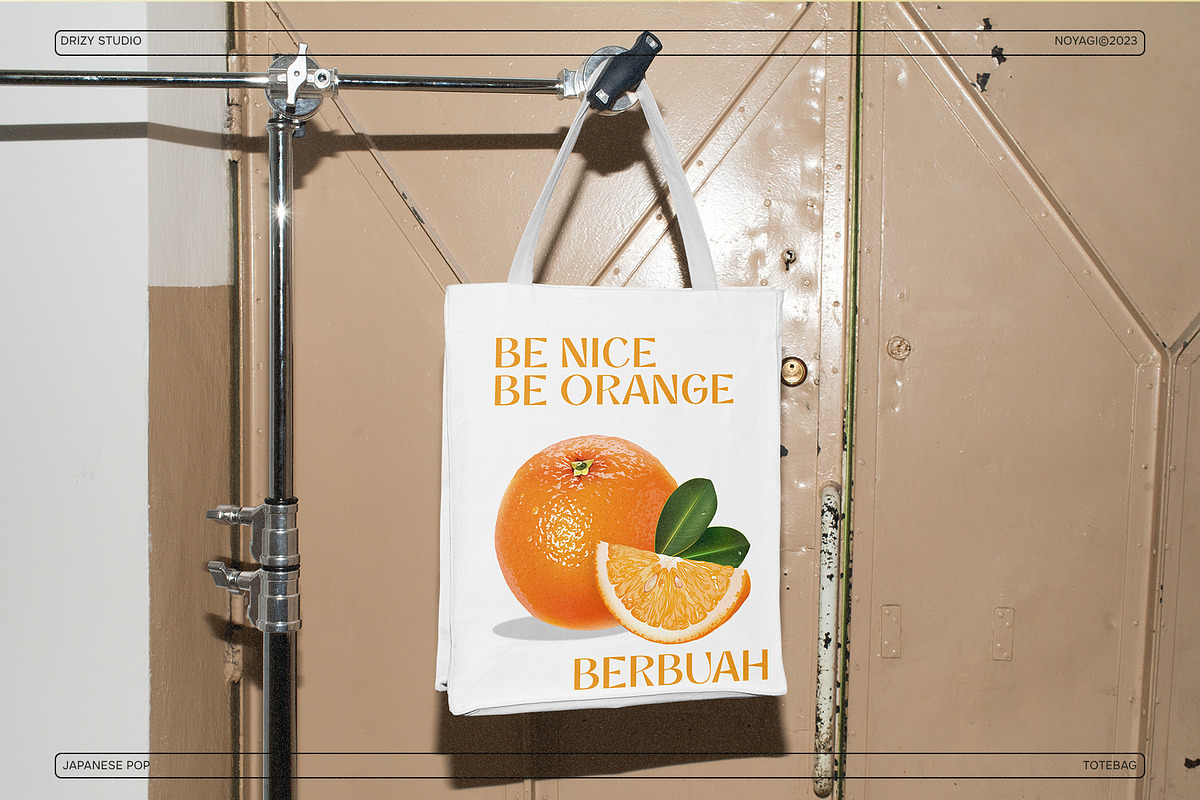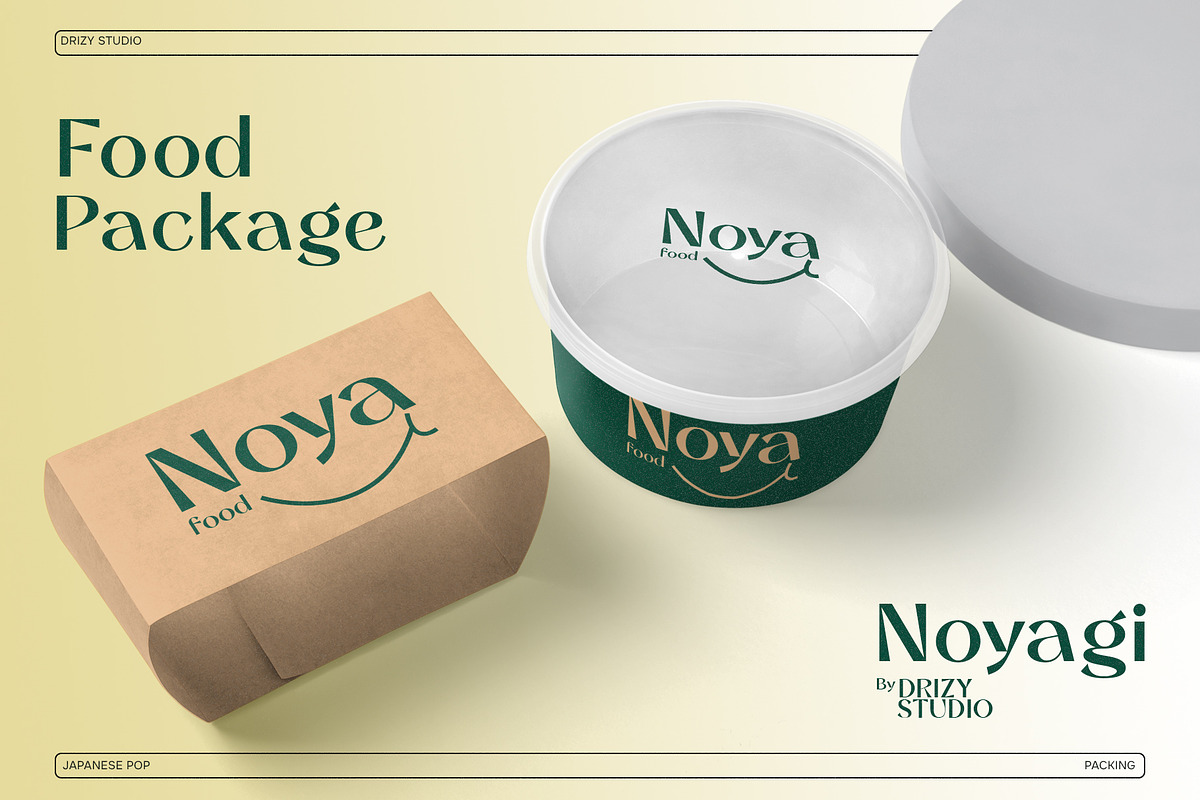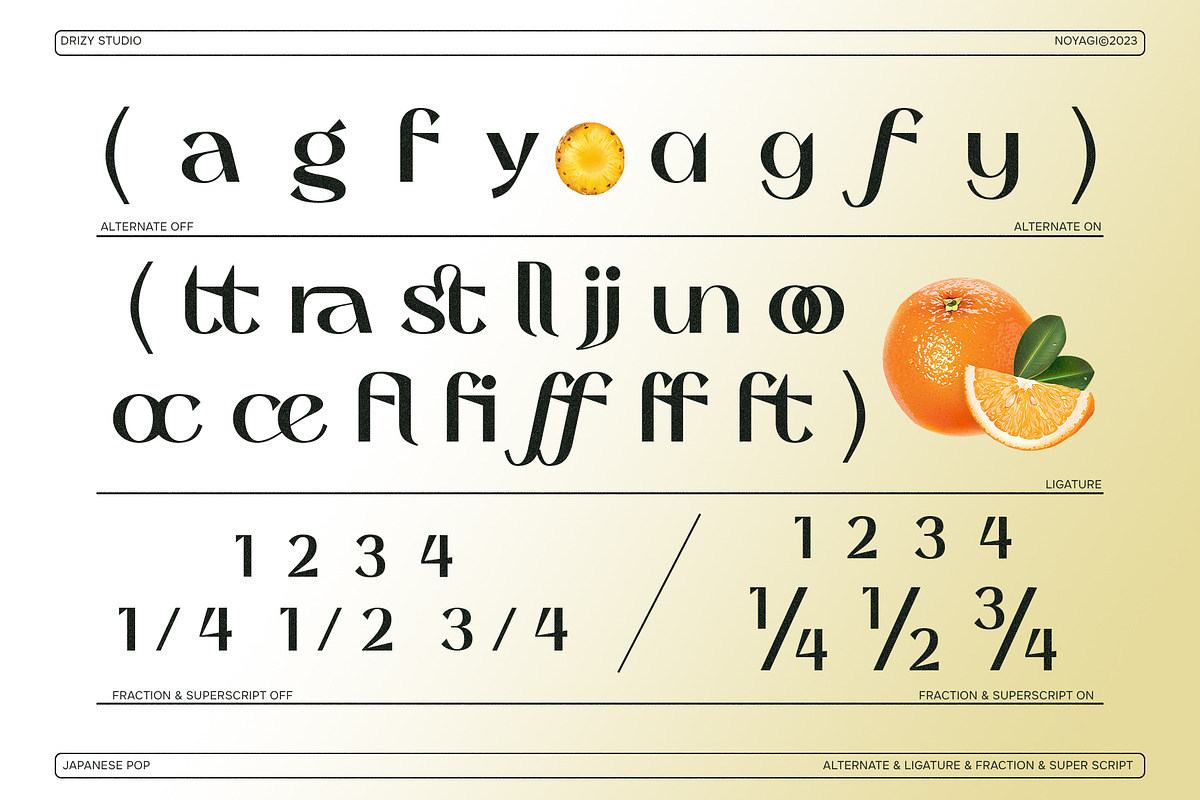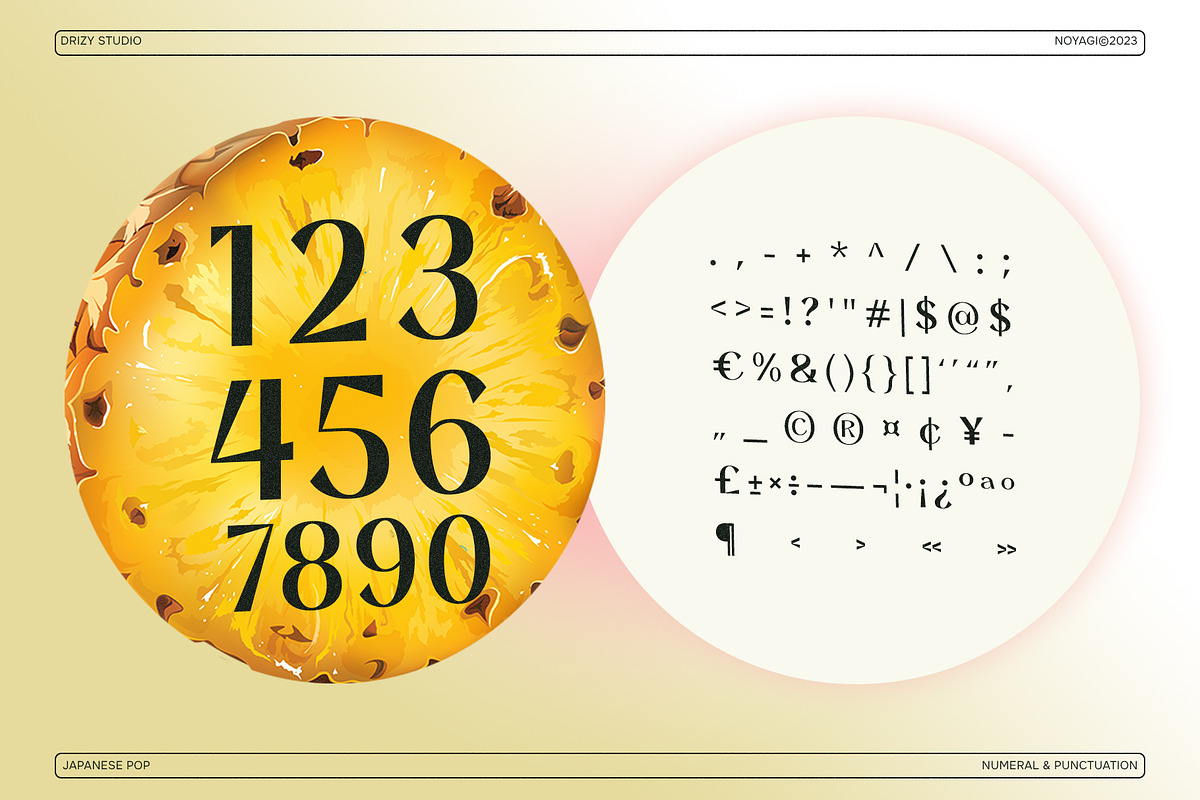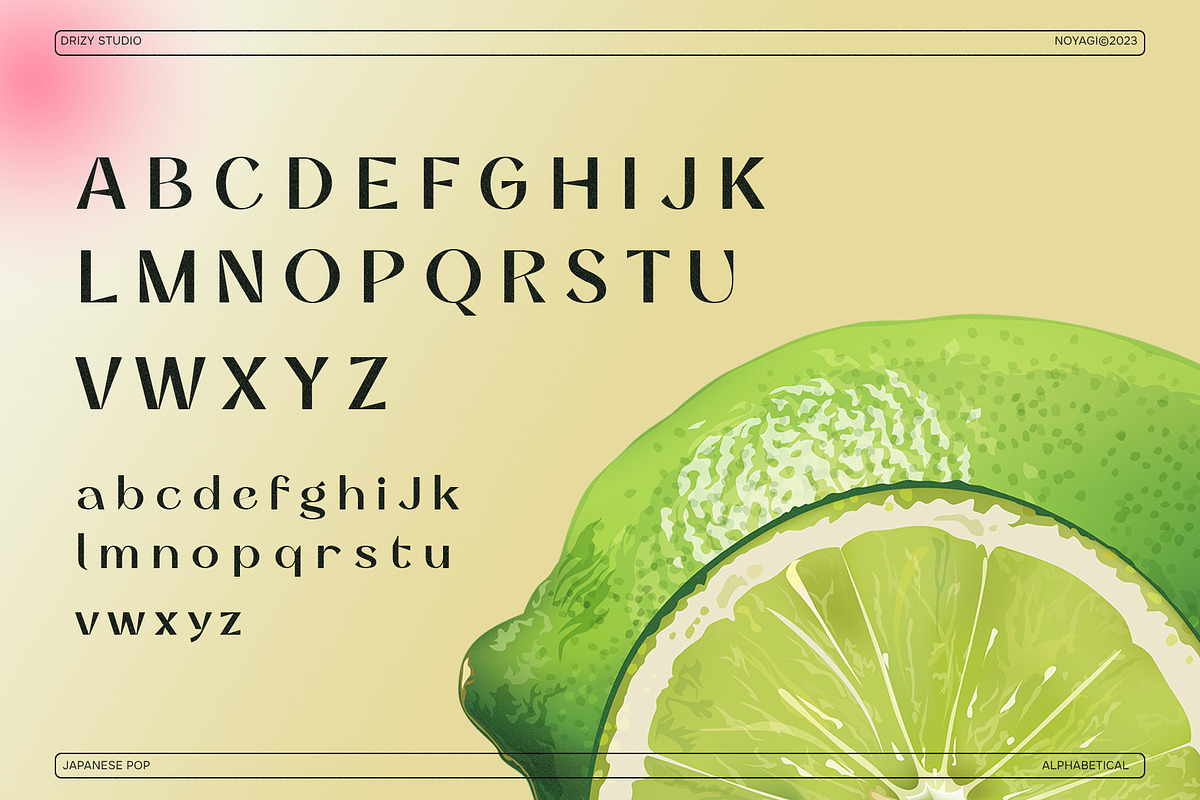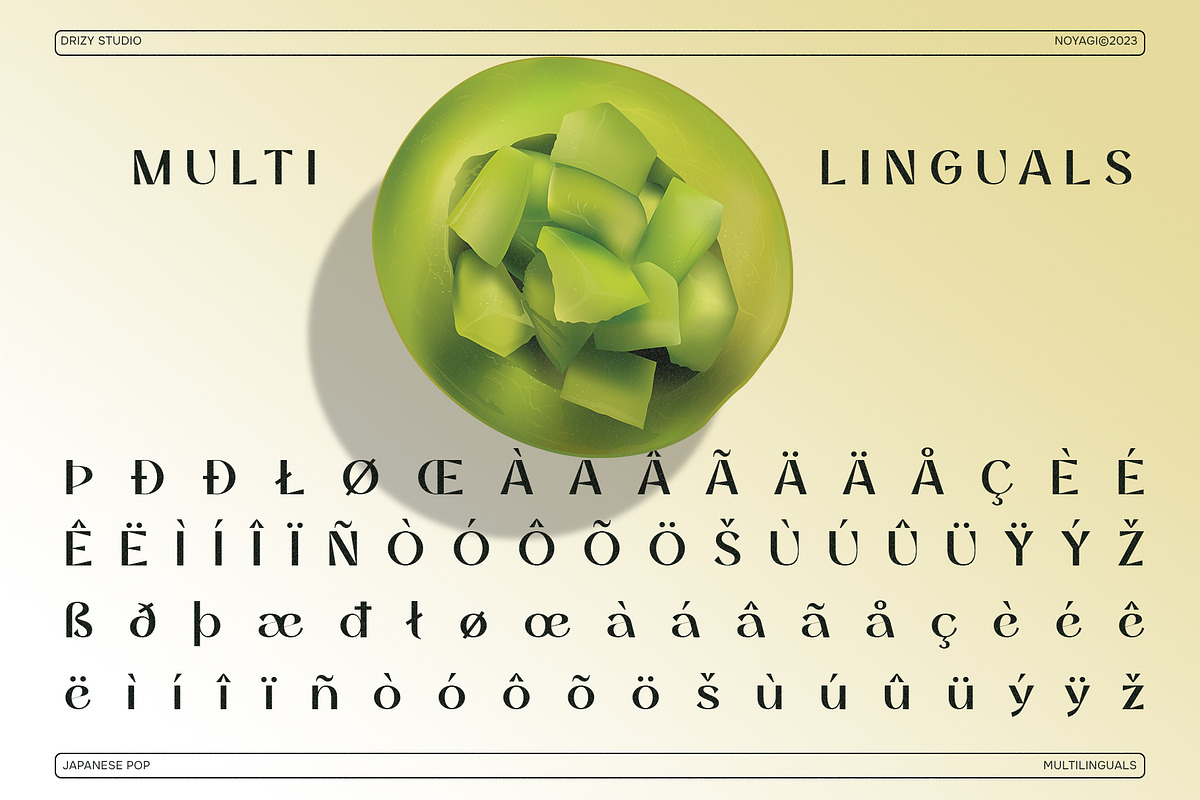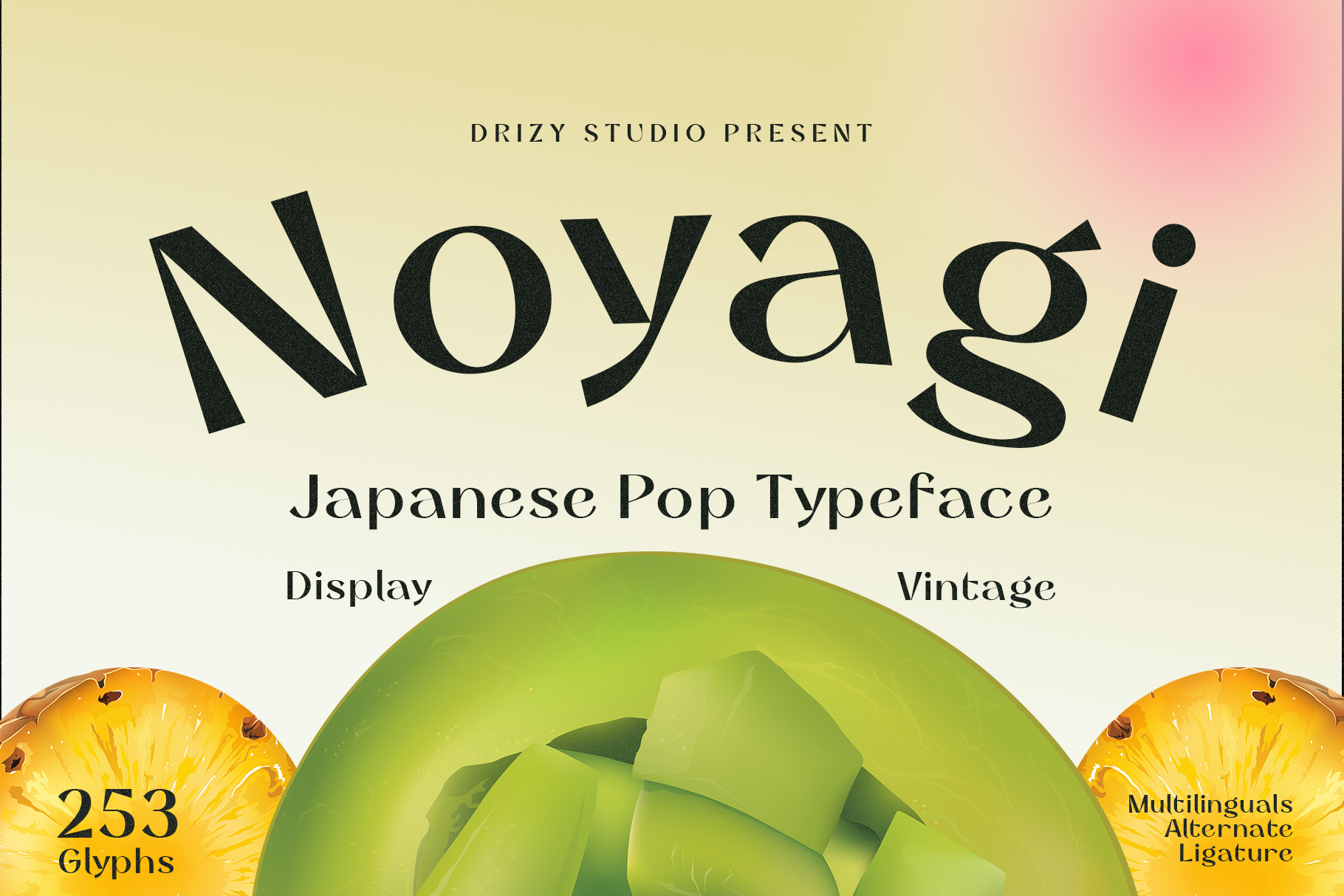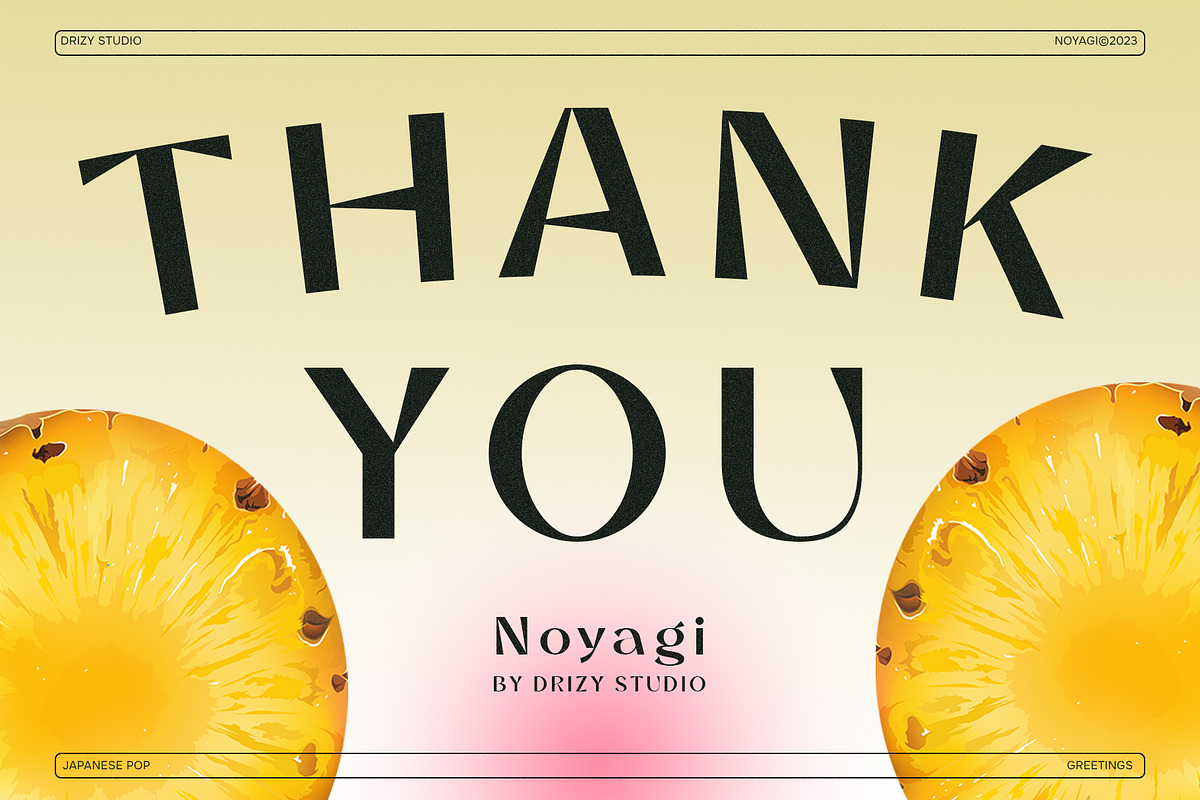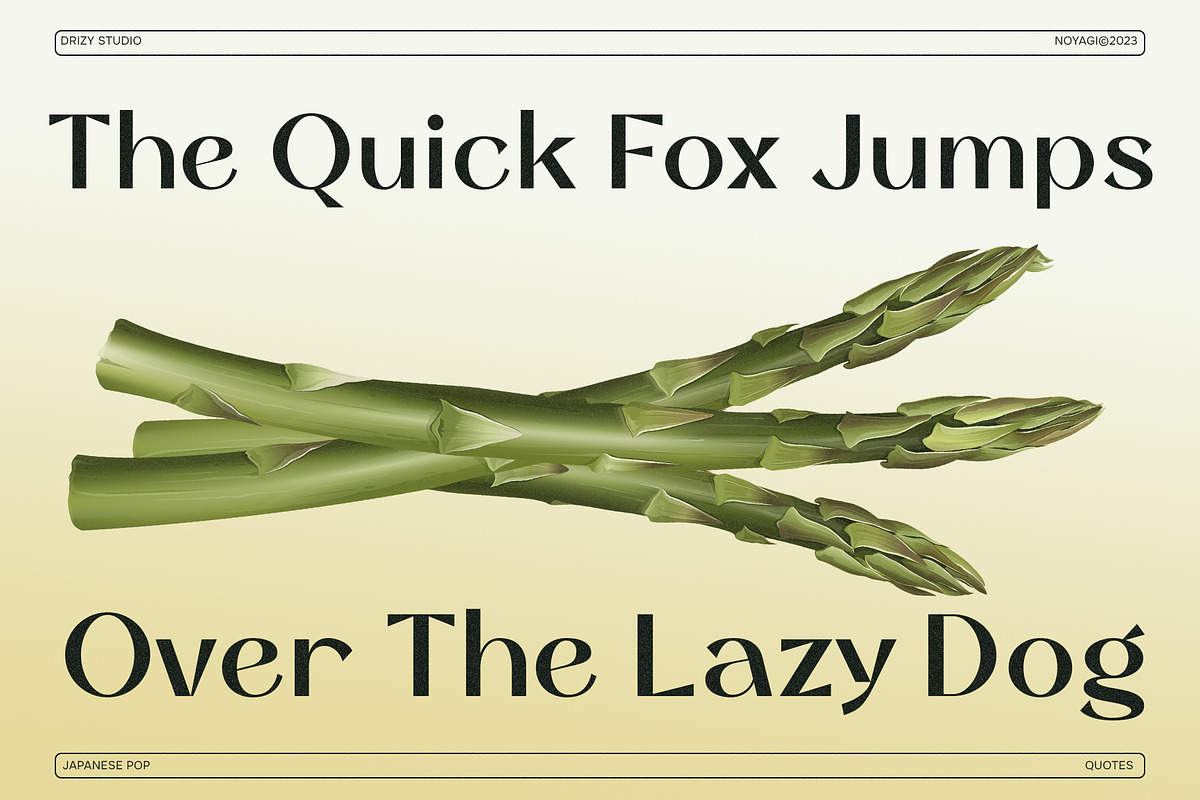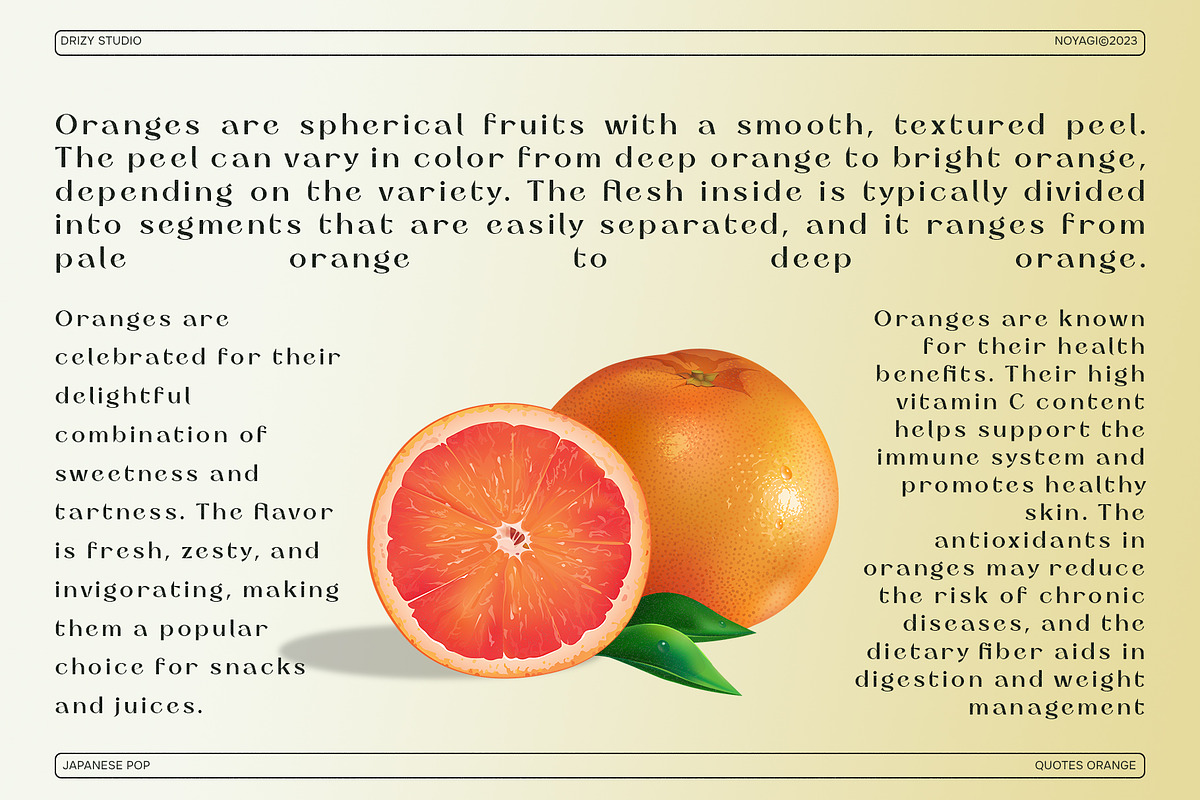
Noyagi - Vintage Japanese Pop Font
Noyagi is the perfect typeface to transport your audience to the enchanting world of vintage Japanese aesthetics. This unique font captures the essence of retro Japan with a modern twist, making it ideal for a wide range of creative projects.
Noyagi features: Uppercase & Lowercase Punctuation & Numbers Multilingual Support Alternates